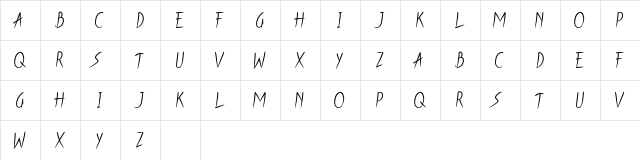
BLacx Dog Regular
Design Context for BLacx Dog Typeface
BLacx Dog is a composed and adaptable typeface that performs quietly and consistently across a wide range of design contexts.